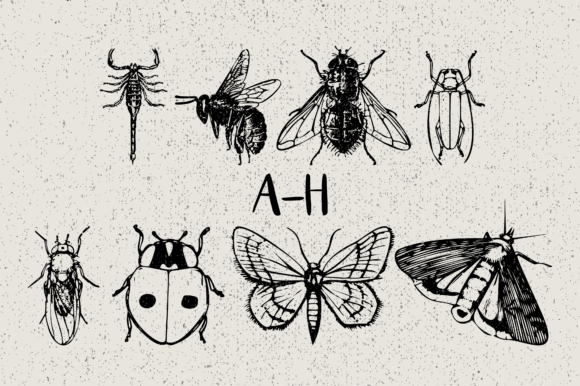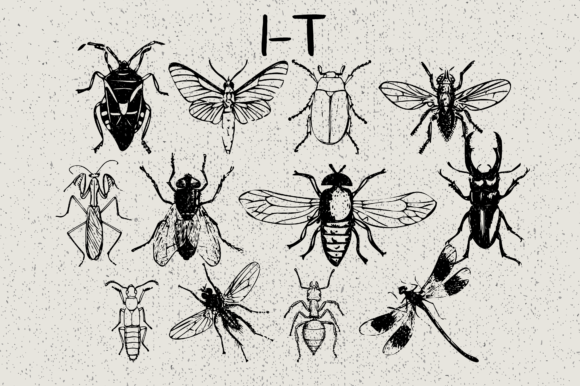
Insects Font
Insects is indeed a unique and highly detailed dingbats font that can add a touch of nature and intricacy to your designs. With its collection of 62 glyphs representing various insects, this font offers a wide range of possibilities for your projects.
The Insects dingbats font is designed with great attention to detail, capturing the distinctive features and characteristics of different insects. From butterflies and bees to beetles and spiders, each glyph represents a specific insect species.
By typing capital letters, small letters, and numbers, you can easily access and use the different insect glyphs in your designs. Whether you’re creating a nature-themed poster, a scientific illustration, or a children’s book, the Insects font provides a versatile set of elements to incorporate into your artwork.
The highly detailed nature of the Insects font allows you to achieve a realistic representation of these tiny creatures. The intricate patterns, textures, and shapes of the insects can add depth and visual interest to your designs.
You can explore various creative possibilities with the Insects font. Mix and match the different insect glyphs, resize them, and arrange them in unique compositions. Experiment with different colors and styles to create visually captivating designs.
The Insects font can be used in a wide range of design projects. Whether you’re working on digital designs, print materials, educational resources, or even decorative elements, this font can be a valuable asset.
When using the Insects font, consider the overall theme and tone of your project. You can create realistic depictions of insects in scientific or educational materials, or you can take a more playful approach in children’s illustrations or nature-themed designs.
In summary, Insects is a unique and highly detailed dingbats font that offers a collection of 62 insect glyphs for your design projects. With its intricate details and versatile applications, this font provides endless possibilities to incorporate the beauty of insects into your designs. So, unleash your creativity and explore the endless possibilities that the Insects font has to offer!